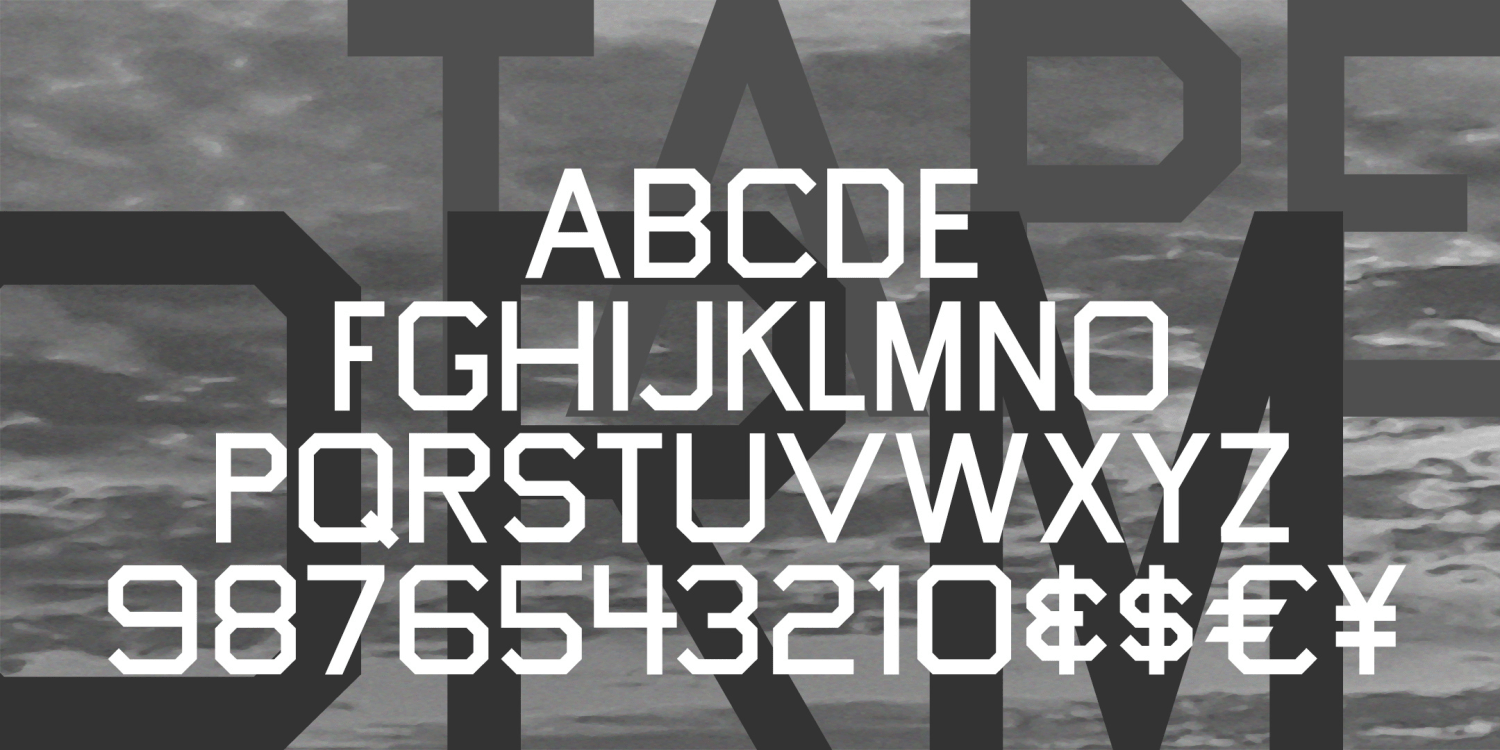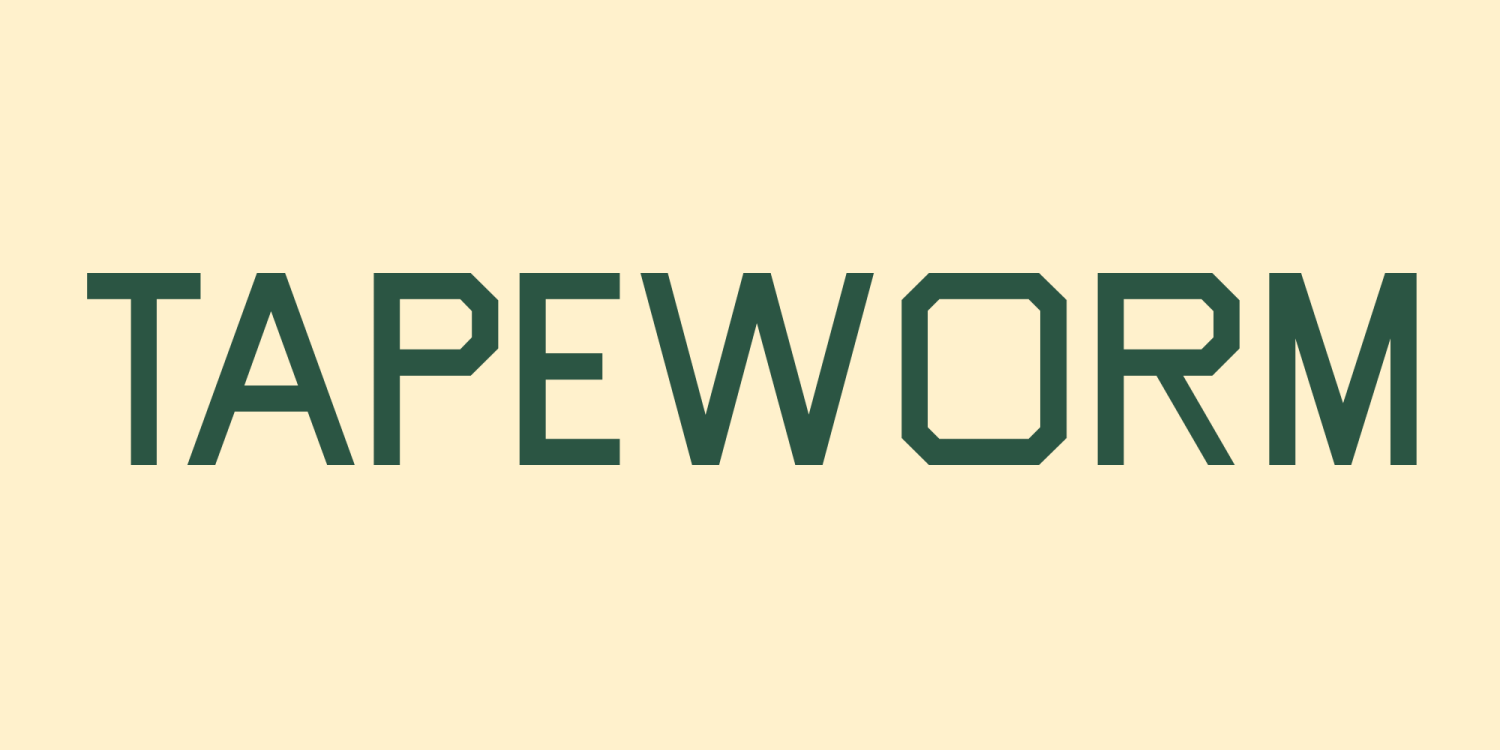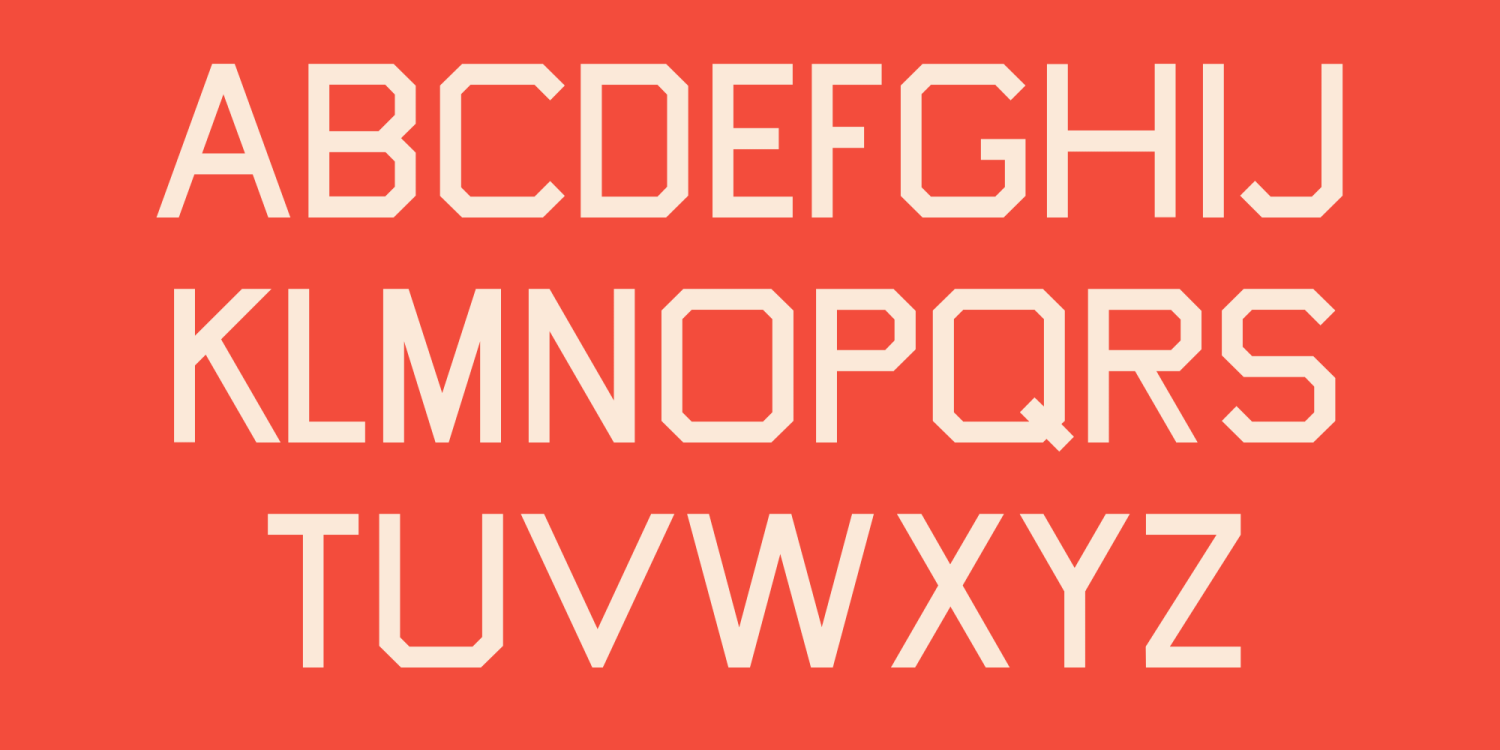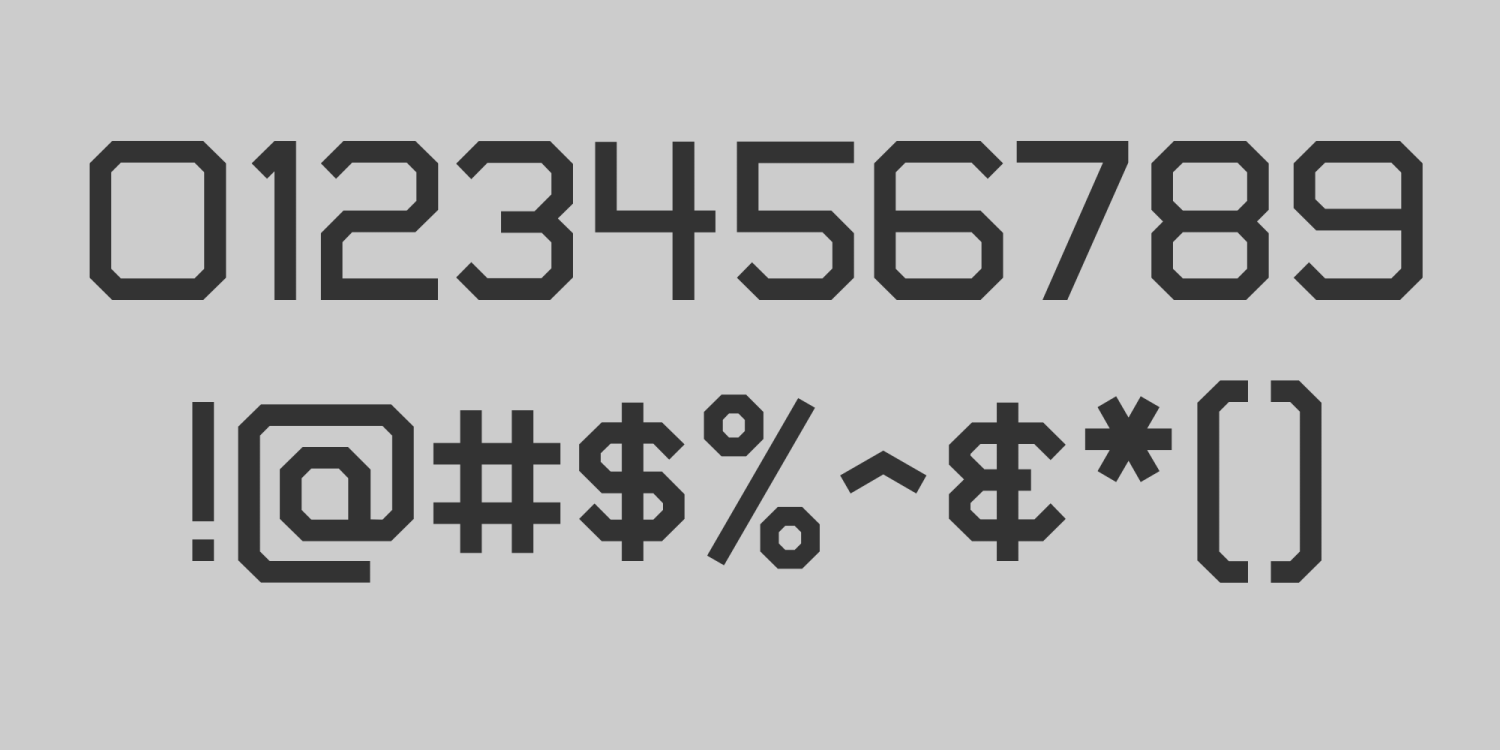
Tapeworm
TAPEWORM was inspired by the work of the great L.A.-based American artist Ed Ruscha. His characteristic work includes drawings and paintings of words: a single word, found language, and the like. This is one of the styles he's used, which he has referred to as "Boy Scout utility modern." It's precise but awkward and looks like the letters an obsessive amateur sign painter would make with masking tape, of uniform weight but curious formation. I was so proud when I got a "like" on social media from Ed's own account.
Tapeworm includes 300 glyphs.